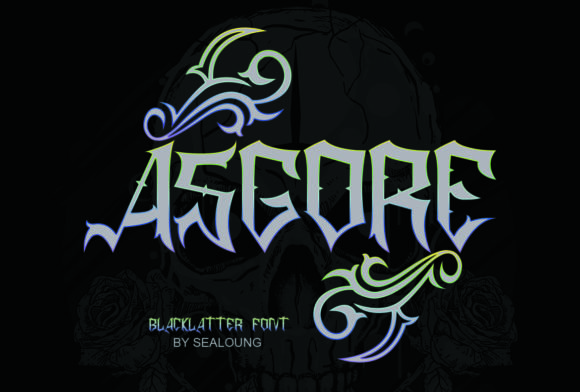
Unlocking the Artistic Potential of the Asgore Font
Have you ever been stuck in a creative rut, staring at a blank page, and suddenly a spark of inspiration hits you? For many designers, the thrill of discovering a new font is just that spark. And when it comes to blackletter fonts, none stands out quite like the Asgore Font. This great font is perfect for logos, branding, greeting cards, tattoos, lettering, and much more!
With its unique, handcrafted design, the Asgore Font is a valuable addition to any designer’s toolkit. Whether you’re working on a high-end branding project or a personal art piece, this font’s versatility and character will help bring your vision to life. The Asgore Font is more than just a font – it’s a tool for self-expression and creativity.
Asgore Font Key Features
- Unique Characteristics: As gore Font features a unique, hand-drawn design with intricate details, making it perfect for creating visually striking and emotive content.
- Style Variations: The font includes multiple style variations, including regular, bold, italic, and bold italic, offering designers a range of options to suit their needs.
- Language Support: As gore Font supports a wide range of languages, including Latin, Cyrillic, and Greek alphabets, making it a versatile choice for global content creation.
Asgore Font Review
Overall, I found the As gore Font to be quite intriguing and well-suited for specific use cases.
- ✨ Unique blend of fantasy and mysticism: The font’s design elements evoke a sense of otherworldly mysticism, which can be perfect for projects that require an air of magic or fantasy.
- ✨ High-quality glyphs: The font’s glyphs are well-designed and detailed, making it a pleasure to work with.
- ✨ Support for various languages: The font supports a wide range of languages, including many Cyrillic and Greek scripts.
- ⚠️ Limited legibility: While the font is visually striking, it can be difficult to read at smaller font sizes due to its unique design elements.
- ⚠️ Limited font sizes: The font may not be suitable for large-scale headings or titles, as its unique design elements can become overwhelming at larger sizes.
Overall, I would recommend the As gore Font for projects that require a unique, mystical aesthetic. However, it may not be the best choice for projects that require high legibility or flexibility in terms of font size.
The As gore Font is ideal for use in:
1. Fantasy and sci-fi themed designs.
2. Gaming and esports branding.
3. Horror and suspense themed designs.